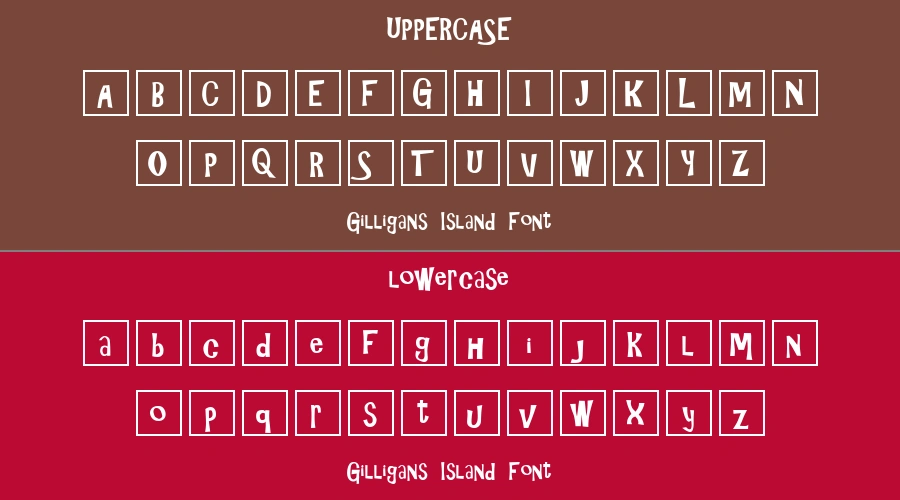
About Gilligans Island Font
Designed with precision, Gilligans Island Font merges perfect spacing with functionality in every character. This versatility makes it particularly effective for logo design, where elegance and design heritage directly impact communication quality. Each letterform demonstrates meticulous craftsmanship.
Technical excellence shines through elements like subtle details and proportional figures, enhancing typographic versatility. In display applications settings, Gilligans Island Font proves its worth through superior OCR compatibility. The thoughtful execution of counter shape and market positioning ensures professional results.